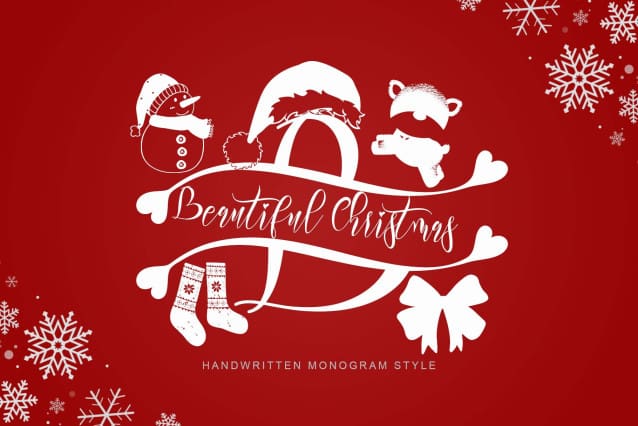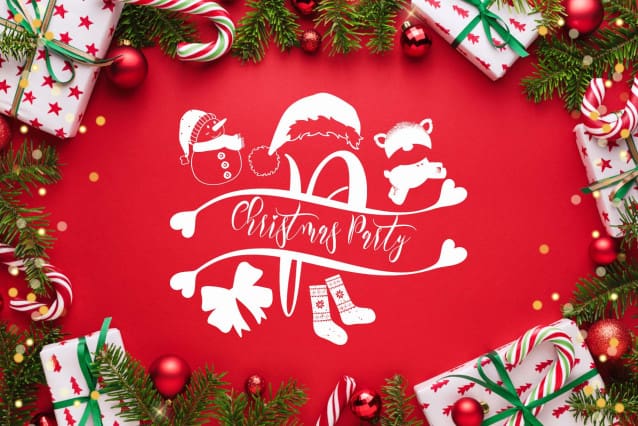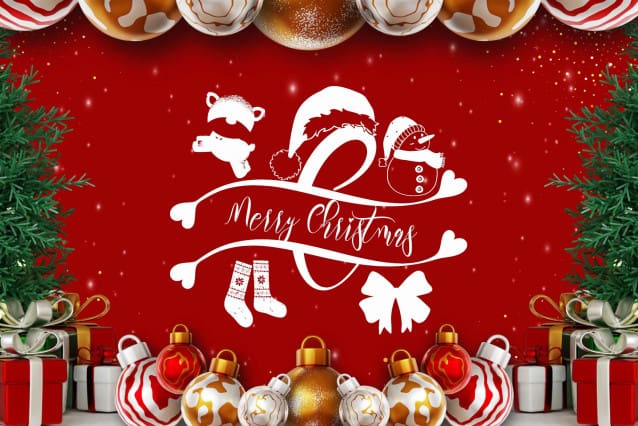
Beautiful Christmas Monogram Font
Beautiful Christmas Monogram Font is a beautiful and unique monogram font. This font is equipped with monograms, uppercase, lowercase, numerals, punctuations and multilingual support. Very suitable for Christmas, winter, Christmas invitations, Christmas parties, Christmas ornaments, Christmas decorations and others.